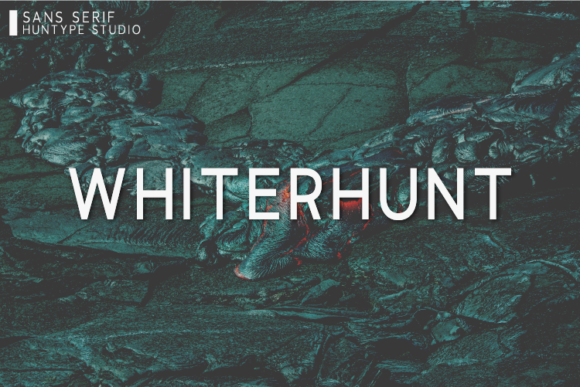
Immerse yourself in the realm of sophistication and grace with Whiterhunt, the epitome of elegance in the world of typography. This slender and pristine sans serif font exudes a timeless charm, effortlessly elevating your designs to new heights of refinement.
With its clean lines and delicate curves, Whiterhunt possesses an air of understated luxury that commands attention without overpowering. Its thin strokes create a sense of lightness and airiness, allowing your words to dance across the page with a graceful fluidity.
Whether you're crafting elegant logos, designing captivating invitations, or creating stunning headers and titles, Whiterhunt is your perfect companion. It effortlessly adapts to a myriad of projects, bringing a touch of sophistication and class to each endeavor.
Unleash your creativity and let Whiterhunt transform your designs into works of art. Experience the allure of its timeless beauty and watch as your projects blossom into masterpieces of elegance. Embrace the allure of Whiterhunt today and elevate your designs to new heights of sophistication.
1. Thin and neat sans serif font
2. Exudes a timeless charm
3. Elevates designs to new heights of refinement
4. Clean lines and delicate curves
5. Air of understated luxury
6. Effortlessly adapts to a myriad of projects
Perfect for:
1. Elegant logos
2. Captivating invitations
3. Stunning headers and titles
4. Marketing materials
5. Branding projects
6. Websites and blogs